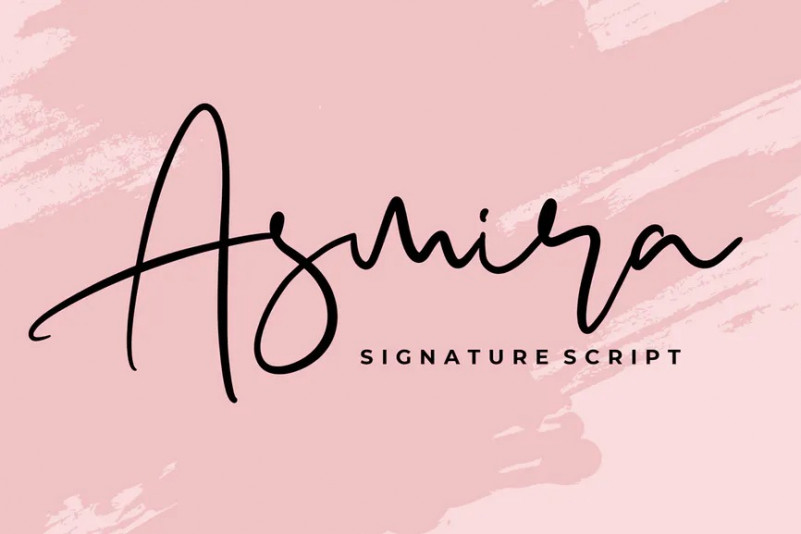
Asmira Font
Asmira is a signature script can be used for various purposes such as logos, wedding invitations, t-shirts, letterheads, signage’s, labels, and much more!